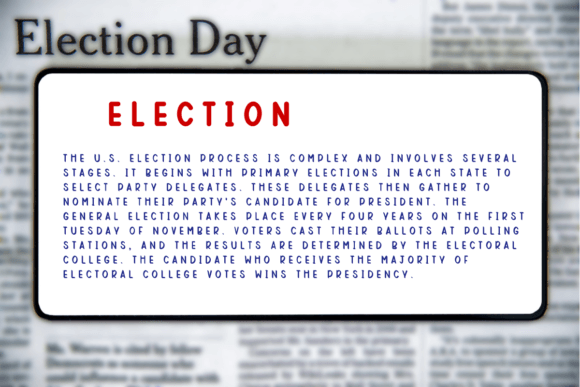
The Sweet Charm of Elections Font: A Designer’s New Best Friend
I still remember the design project that led me to discover the Elections font. I was working on a whimsical branding project for a local bakery, and I was struggling to find the perfect font to capture their friendly, homemade vibe. That’s when I stumbled upon Elections, a sweet and friendly handwritten font that instantly won my heart. Its natural and unique style made it incredibly fitting for a wide range of designs, and I knew right then that it was going to be my new go-to font.
So, what makes Elections font so special? Here are a few things that I absolutely love:
- ✨ Unique and friendly style: Elections has a distinct, handwritten charm that sets it apart from more generic fonts.
- ✅ Highly versatile: This font can be used for a wide range of designs, from branding and logos to social media graphics and party invitations.
- 💕 Easy on the eyes: The font’s natural flow and gentle curves make it a joy to read, even in larger blocks of text.
Of course, no font is perfect, and Elections has a few minor quirks to keep in mind:
- 🤔 Limited formal applications: While Elections is amazing for friendly, casual designs, it might not be the best fit for more formal or corporate projects.
- ⚠️ Glyph coverage: As with any font, there might be some limitations in terms of special characters or glyphs, so be sure to test it thoroughly for your specific needs.
The Story Behind Elections Font
Elections font was designed with the intention of creating a friendly, approachable typeface that would bring a touch of warmth to any design. While I couldn’t find any information on the font’s creator, it’s clear that their goal was to craft a font that’s both unique and easy to read.
| What makes Elections font so special? | Elections font has a unique, handwritten style that’s both friendly and versatile, making it perfect for a wide range of designs. |
| Is Elections font suitable for body text? | While Elections font is easy to read, it’s primarily designed for display purposes. For longer blocks of text, you might want to consider a more traditional serif or sans-serif font. |